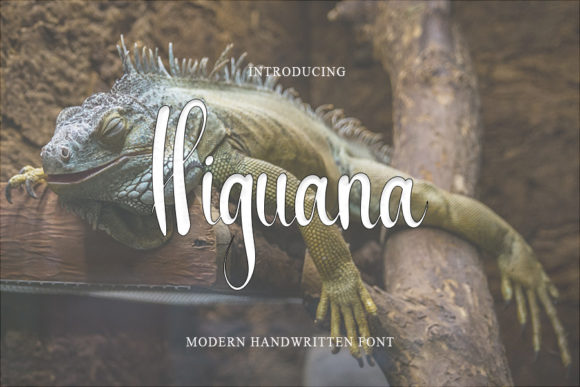
Hey there, font fanatics! Welcome to the enchanting world of Higuana, a tantalizing script font that will set your heart aflutter from the very first moment.
Picture this: you're nestled in a cozy nook, penning a heartfelt love letter to your beloved. As you glide your pen across the paper, the words dance upon the page in the alluring curves of Higuana. Each stroke is a brushstroke of pure emotion, capturing the depth of your feelings with effortless grace.
Higuana's masterful design effortlessly intertwines the elegance of classic calligraphy with a modern, vibrant flair. It's like a timeless love story written in ink, forever etched in the annals of your romantic endeavors. Its casual handwritten style adds a touch of authenticity and intimacy, making it the perfect font to express your innermost emotions.
But wait, there's more! Higuana isn't just for love letters; it's a versatile chameleon that adapts seamlessly to any creative project that demands a dash of charm and sophistication. Whether you're crafting invitations for a special occasion, designing enchanting logos, or simply adding a touch of whimsy to your social media posts, Higuana will effortlessly elevate your creations to new heights.
So, why settle for ordinary fonts when you can have the extraordinary? Download Higuana today and let its captivating curves ignite the passion in your projects. It's the font that will make your words sing, your designs dance, and your love letters soar. Fall head over heels for Higuana – the font that will steal your heart and leave an unforgettable mark on your creative journey!